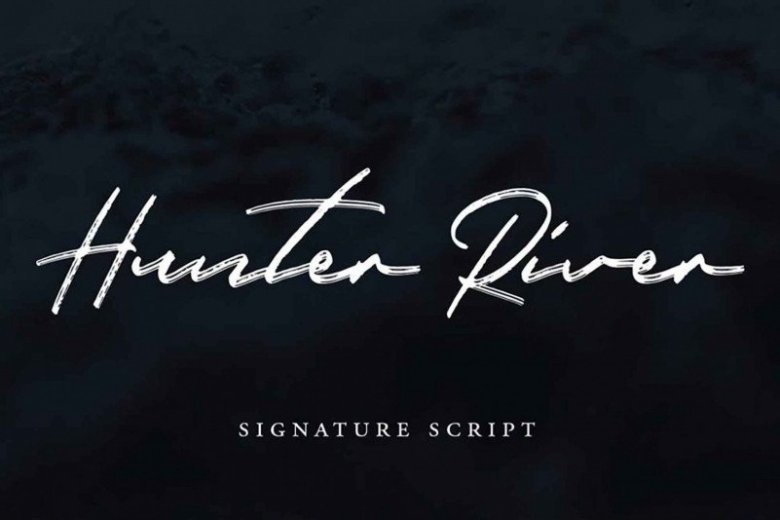
Hunter River Font
Hunter River typeface designed by Hustle Supply Co. is casual hand brush script that is suitable for design projects ; logo, branding, poster, quotes, gorgeous wedding invitations, beautiful stationary art, eye-catching social media posts, and cute greeting cards and any other designs. It is unique, so natural and catchy.